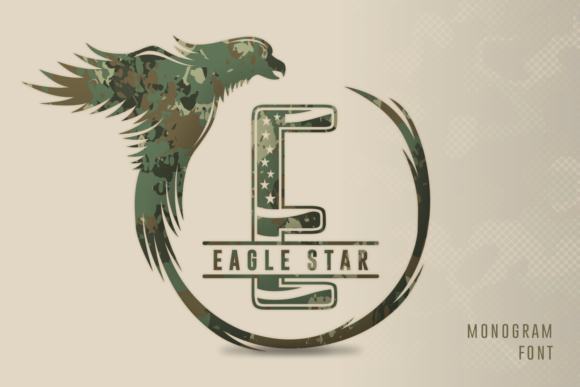
Dive into the world of Eagle Star Font, a captivating decorative font family that exudes elegance and charm. Unleash your creativity and transform your designs into masterpieces with this chic and lovely font. Eagle Star is perfect for adding a touch of sophistication to your letters, invitations, and design projects, leaving a lasting impression on your audience.
Indulge in the beauty of Eagle Star, a font that embodies the essence of class and finesse. Its delicate strokes and intricate details will elevate your designs to new heights. Experience the joy of creating stunning visuals that captivate and inspire. With Eagle Star Font, your designs will radiate elegance and leave a lasting impact on all who see them.
With Eagle Star Font, the possibilities are endless. Let your imagination soar as you create eye-catching posters, enchanting invitations, and captivating logos. This versatile font is perfect for a wide range of design projects, from personal to professional. Unlock your creativity and explore the boundless potential of Eagle Star Font.
Eagle Star Font is more than just a font; it's a gateway to a world of artistic expression. Its delicate charm and timeless beauty will transform your designs into works of art. Embrace the allure of Eagle Star Font and watch as your projects blossom into captivating masterpieces.